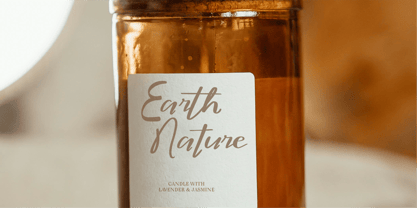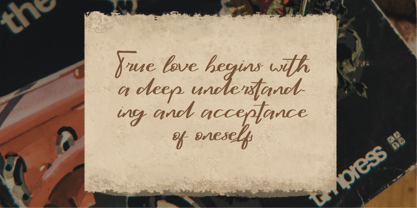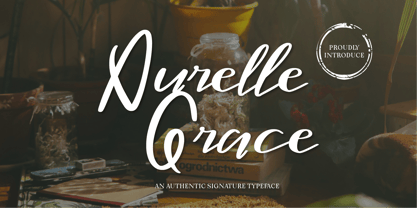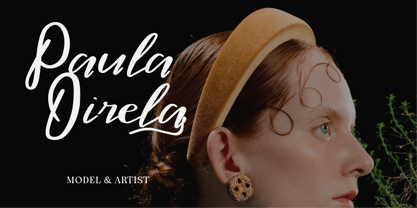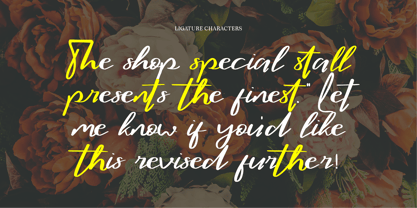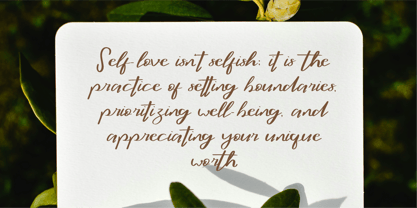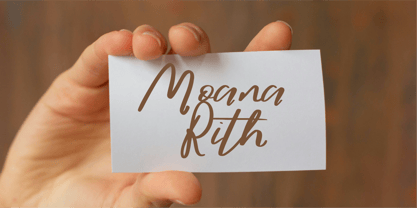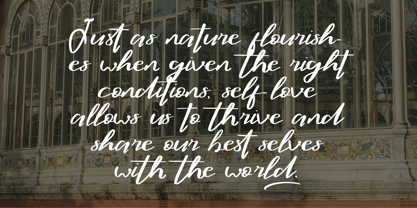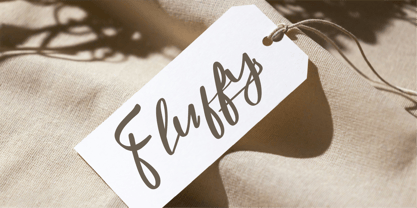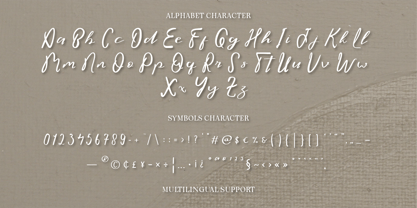
CF Aurelle Grace
by Indotype
The CF Aurelle Grace Font Family was designed by Gilang Mei Nugraha, Frederik Aristaputra and published by Indotype. CF Aurelle Grace contains 1 styles. More about this family
Aurelle Grace is a sophisticated handwritten font that exudes authenticity and charm through its flowing, natural strokes and soft, organic curves. With its signature-inspired design, this typeface balances elegance and casualness, making it ideal for branding, invitations, and logos. The bold, expressive capital letters pair seamlessly with the fluid, dynamic lowercase, creating a cohesive and versatile style. Perfect for adding a personal, upscale touch, Aurelle Grace captures the essence of warmth and individuality in every letter.
Designers: Gilang Mei Nugraha, Frederik Aristaputra
Foundry: Indotype